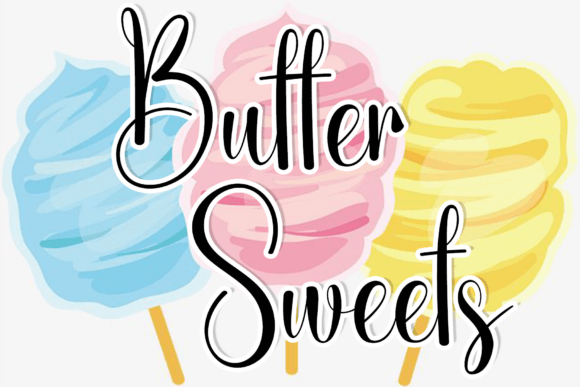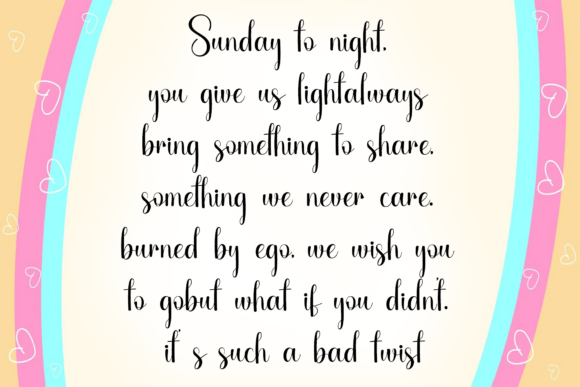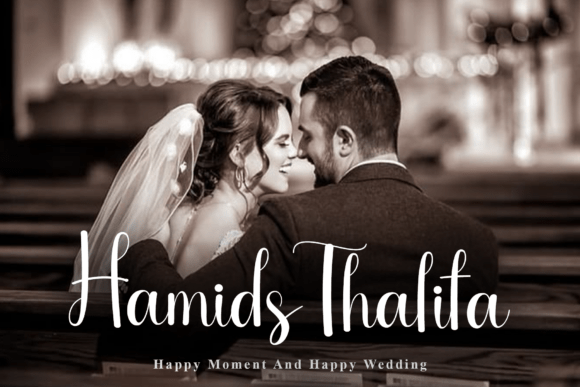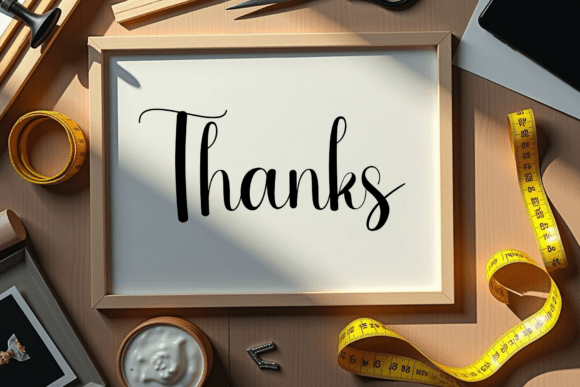
Better Alphabeths Font: Elevate Your Brand with Sophisticated Script
In the world of typography, few fonts manage to strike a balance between elegance and approachability. Better Alphabeths, a sophisticated and rhythmic script font, is one such exceptional find. Its unique blend of calligraphic flair and warm, organic aesthetic makes it an ideal choice for designers and crafters looking to add a touch of artisanal charm to their projects.
The Distinctive Charm of Better Alphabeths
Better Alphabeths’ most defining feature is its use of sweeping, looping ascenders. These fluid strokes create a sense of customized, artisanal artistry that sets this font apart from more rigid script fonts. The result is a typographic style that feels both luxurious and intimate, perfect for brands and projects that aim to convey a sense of high-end quality and personal touch.
Ideal Applications for Better Alphabeths
Better Alphabeths shines in a variety of applications where its unique blend of sophistication and warmth can be fully appreciated. Some of the premier uses for this versatile font include:
- Artisanal Food Branding: For food brands that pride themselves on traditional methods, high-quality ingredients, or small-batch production, Better Alphabeths offers a typographic solution that feels both gourmet and genuine.
- Boutique Product Packaging: The font’s elegant and artisanal feel makes it perfect for product packaging that aims to stand out on crowded shelves. Whether it’s handmade jewelry, bespoke home goods, or luxury skincare, Better Alphabeths can help convey the value and uniqueness of a product.
- Upscale Lifestyle Marketing: For marketing campaigns targeting a high-end audience, Better Alphabeths provides a level of sophistication and refinement that’s hard to match. Its use in advertising, brochures, and digital campaigns can help brands project an image of luxury and exclusivity.
- Creative Editorial Titles: Beyond branding and packaging, Better Alphabeths also finds a place in editorial design. Its distinctive style makes it an excellent choice for titles and headings in magazines, blogs, and books, especially those focusing on lifestyle, art, and culture.
Designing with Better Alphabeths
When incorporating Better Alphabeths into your designs, consider the following tips to maximize its impact:
- Pair with Complementary Fonts: Better Alphabeths works well with a variety of fonts, but it’s particularly striking when paired with clean sans serifs or classic serifs. The contrast can help highlight the font’s unique features.
- Play with Ligatures: Many script fonts, including Better Alphabeths, offer ligatures—special character combinations that replace standard letter pairs. Using ligatures can enhance the flow and elegance of your text.
- Adjust Line Spacing: To maintain readability while showcasing the font’s sweeping ascenders, consider adjusting the line spacing. This can help create a visually appealing rhythm on the page.
Better Alphabeths is more than just a font; it’s a design statement. Its sophisticated calligraphic style, combined with a warm and organic aesthetic, makes it a versatile tool for designers and crafters. Whether you’re looking to elevate a brand, package a product, or simply add a touch of elegance to an editorial project, Better Alphabeths offers a unique solution. Its sweeping ascenders and looping strokes bring a sense of artisanal care and customized attention that can set your work apart in a crowded marketplace. With Better Alphabeths, the possibilities are as vast as your imagination.